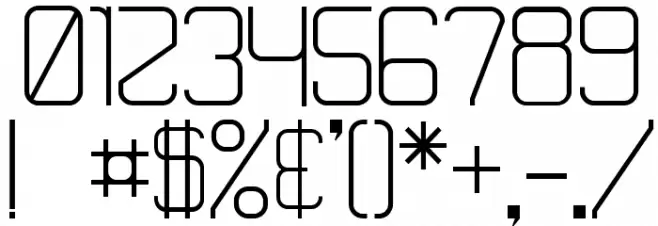
Speakeasy Menu Regular Font
Speakeasy Menu Regular Description
This font features a modern, geometric design with clean, straight lines and rounded corners. The characters are constructed with a consistent stroke width, giving it a uniform appearance. The uppercase letters are tall and narrow, while the lowercase letters maintain a similar structure but with a slightly more open form. The numerals are distinct and align well with the overall style, maintaining the same geometric precision. Special characters are designed to match the aesthetic, providing a cohesive look across all glyphs. The font's minimalistic and futuristic style makes it suitable for contemporary design projects.
A modern, geometric font with consistent stroke width and rounded corners from Uncategorized fonts.
- Proposed Projects: Ideal for branding, digital interfaces, and modern print designs.
- Use Case: Headlines, Logos, Digital Interfaces